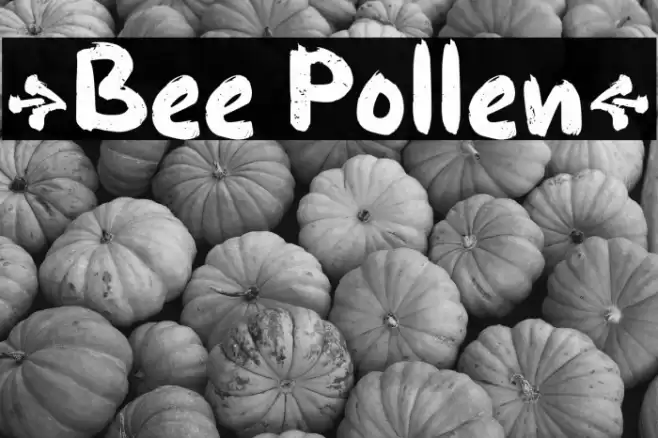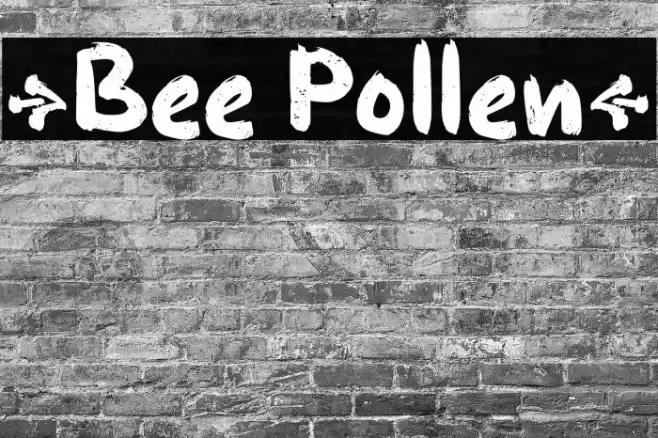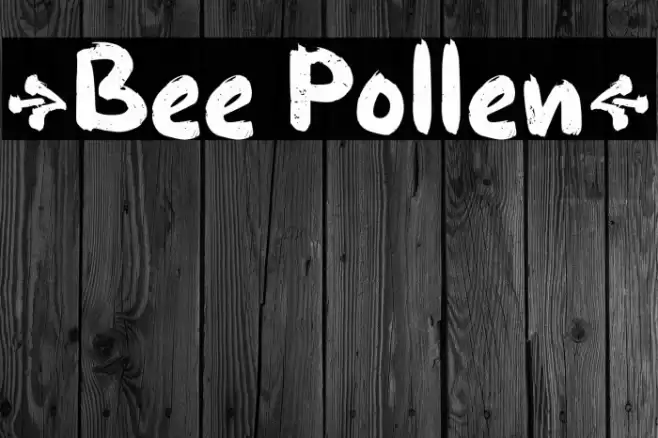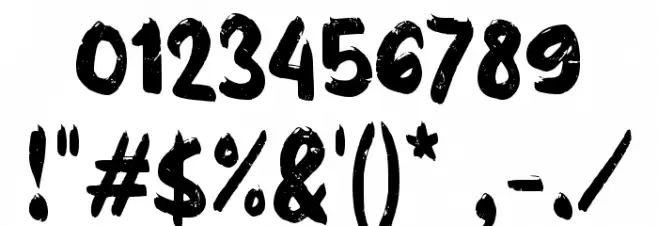
{Bee Pollen} Font
{Bee Pollen} Description
This font features a bold, hand-painted style with a textured appearance that mimics brush strokes. The characters are slightly irregular, adding a dynamic and organic feel. The uppercase letters are bold and commanding, while the lowercase letters maintain a consistent style with a playful touch. Numbers and special characters follow the same aesthetic, ensuring a cohesive look across all text. The font's rough edges and uneven strokes give it a rustic charm, making it ideal for projects that require a handcrafted or artistic vibe.
A bold, hand-painted font with textured, brush-like strokes from Uncategorized fonts.
- Proposed Projects: Ideal for artistic projects, posters, branding, and packaging that require a handcrafted or rustic feel.